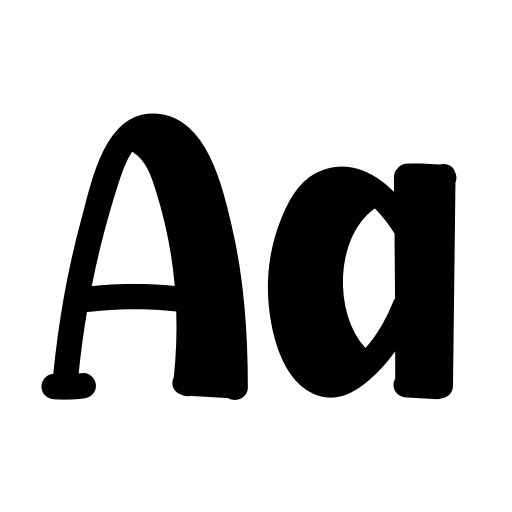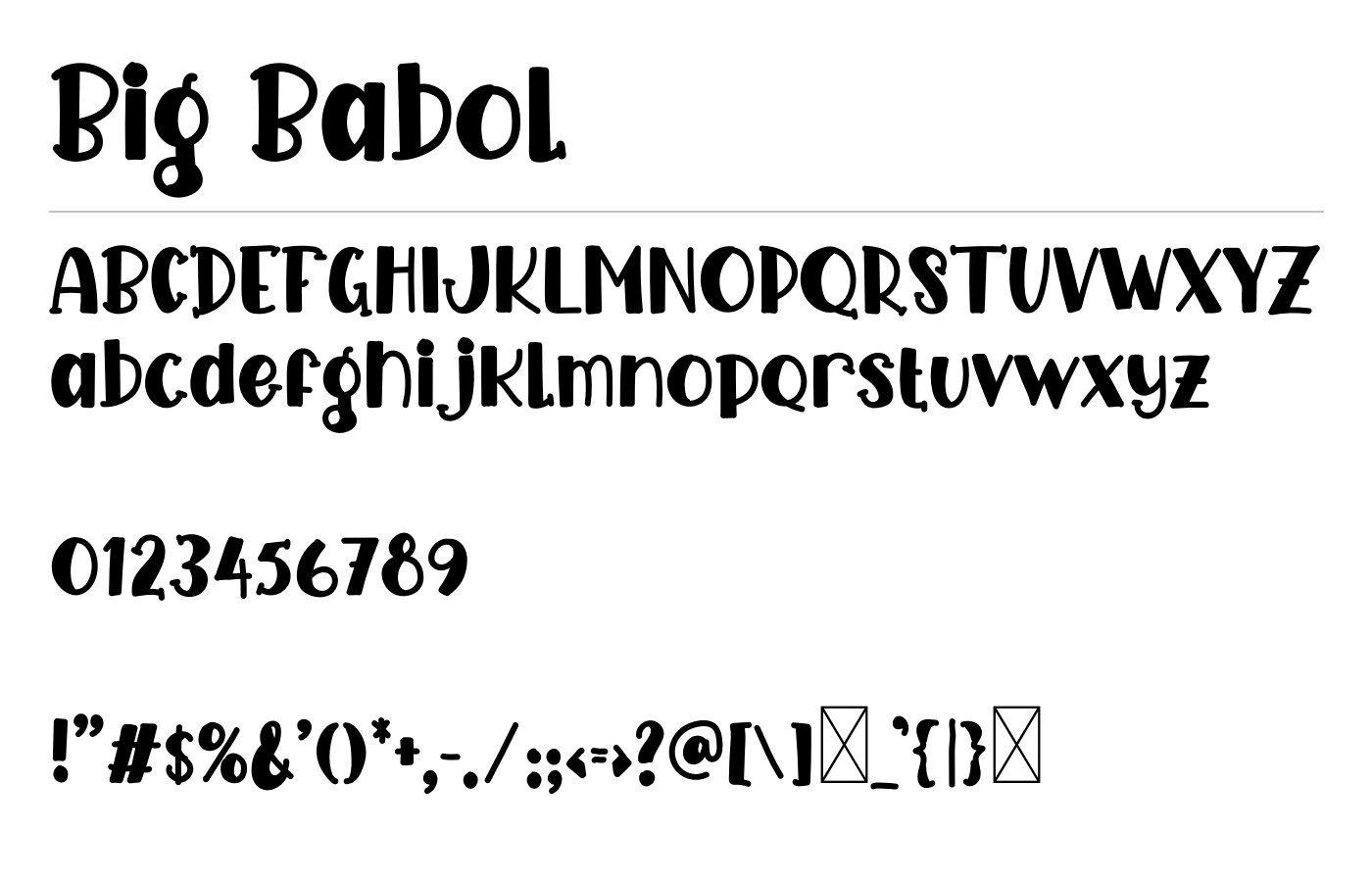
Big Babol is a playful sans serif font with bold, rounded letterforms that create a fun and lively vibe. Its tall x-height and slightly uneven strokes give it a hand-drawn feel, making it ideal for casual, youthful designs like children's books, party invitations, or quirky branding. This font works best in headlines or display uses where a cheerful, approachable tone is desired.
Big Babol Font